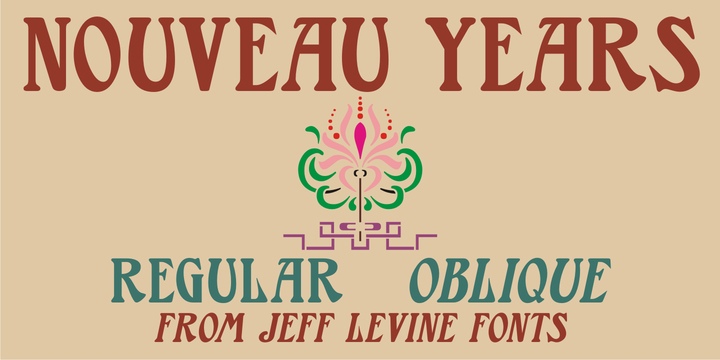
Nouveau Years JNL Font
Nouveau Years JNL Font is perfect for Art Nouveau exhibitions, Belle Époque themed venues, vintage design studios, elegant period restaurants, sophisticated antique dealers, and nostalgic New Year celebrations. Its ornamental character makes it ideal for vintage jewelry boutiques, period theatrical productions, elegant champagne brands, sophisticated turn-of-century hotels, classic luxury brands, and any project requiring fin de siècle elegance with Art Nouveau sophistication and timeless celebratory appeal.
This font is exciting because it captures the artistic revolution and optimistic spirit of the Art Nouveau movement while delivering contemporary functionality for brands celebrating elegance, artistry, and the timeless appeal of decorative sophistication. The beautifully flowing letterforms evoke images of Parisian cafes, elegant soirées, and the artistic renaissance that defined the turn of the 20th century, creating powerful connections with audiences who appreciate artistic refinement and historical elegance.
The Nouveau Years JNL Font family typically includes Regular, Bold, and ornamental variations with Art Nouveau flourishes, period-inspired decorative elements, and Belle Époque ornaments that enhance its artistic personality. This comprehensive collection enables designers to create sophisticated brand systems that maintain historical authenticity while providing creative flexibility for various artistic applications requiring period accuracy and elegant market positioning.
Whether you're developing identity systems for vintage luxury brands, creating materials for Art Nouveau exhibitions, or designing promotional content for elegant celebration venues, Nouveau Years JNL Font Free Download delivers the artistic sophistication and period elegance that connects with audiences appreciating refined artistic heritage and timeless decorative beauty. Its graceful presence ensures memorable brand recognition across digital platforms and print materials, making it perfect for websites, mobile applications, and celebration campaigns that honor artistic tradition, elegant sophistication, and the enduring beauty of Art Nouveau design with contemporary relevance and authentic period charm.